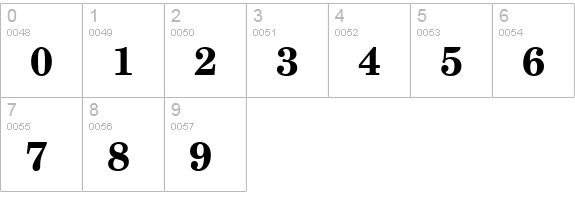
QTSchoolCentury Bold Font Details
QTSchoolCentury Bold is a strong, high-contrast variant in the QTSchoolCentury typeface family \xE2\x80\x94 well suited to headlines, attention-grabbing titles, and strong calls-to-action.
QTSchoolCentury Bold font is an exquisite display typeface that exudes elegance and sophistication. Its bold and strong design makes it perfect for headings, logos, posters, and any other project that requires a touch of grandeur. This font showcases a timeless appeal with its well-defined and meticulously crafted letterforms. Each character is carefully balanced, creating a harmonious blend of curves and straight lines that captivate the eye. The bold weight of the font adds a sense of power and confidence, making it an ideal choice for making a bold statement. What sets QTSchoolCentury Bold font apart is its versatility and adaptability. It seamlessly integrates into various design styles and themes, effortlessly elevating the visual impact of any composition. Whether it is used for a modern website, a vintage-inspired poster, or an elegant wedding invitation, this font is guaranteed to leave a lasting impression. Best of all, QTSchoolCentury Bold font is freely available to download at FontsMarket.com. This means that you can access this exceptional typeface without any cost, making it even more appealing for designers and enthusiasts alike. With just a few clicks, you can enhance your design projects with the timeless beauty and boldness that QTSchoolCentury Bold font offers. So why settle for ordinary when you can have extraordinary? Download QTSchoolCentury Bold font now and unlock a world of design possibilities. Whether you are a professional designer or a passionate hobbyist, this font is sure to become an essential tool in your creative arsenal. Don't miss out on the opportunity to add an extra touch of sophistication to your designs with this remarkable typeface.